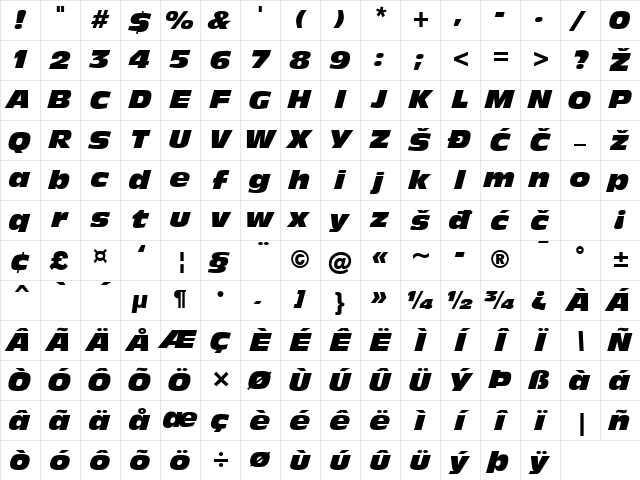
IncisedNord is a composed and adaptable typeface that performs quietly and consistently across a wide range of design contexts. The slanted form adds forward momentum and visual energy.